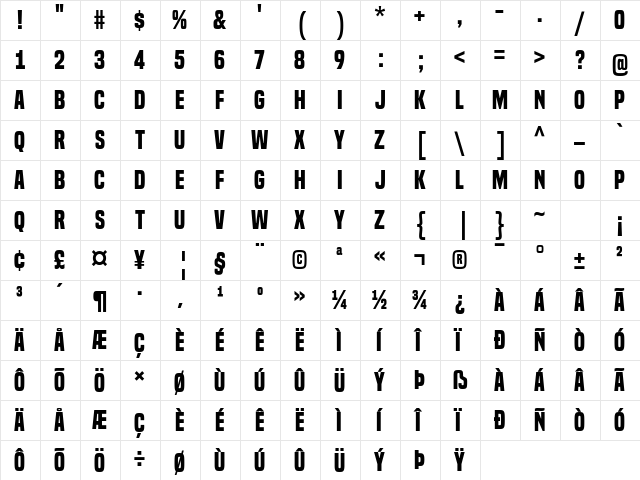
Built Titling Bold
Design Context for Built Titling Typeface
Built Titling is a composed and adaptable typeface that performs quietly and consistently across a wide range of design contexts. The heavy weight commands attention and anchors typographic hierarchies.
Pro Tip: Pair Built Titling with a font of contrasting weight or personality to build a more expressive typographic hierarchy.